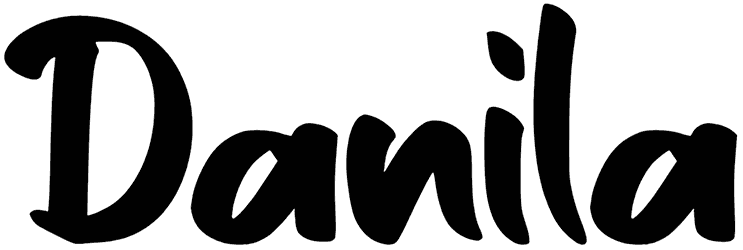
Danila Font
If your projects are lacking a touch of femininity, Danila is here to save the day. Because of the charming brushed effect it has, this summer font is useful whenever you require a relaxed and informal style, including articles, apps, movie titles, and postcards. If you’re interested, you can take any of the many fantastic fonts that are housed in our font library.